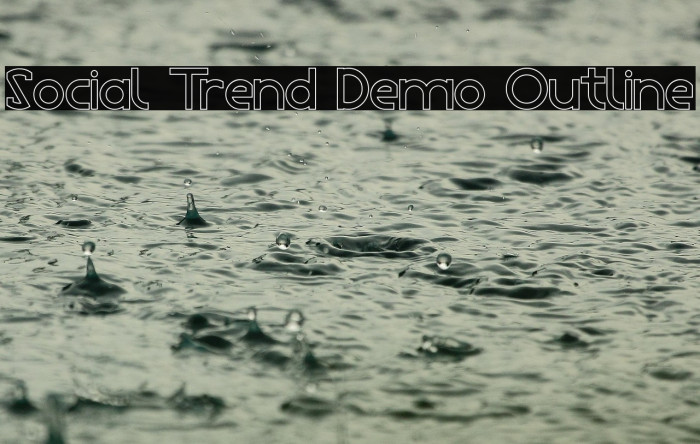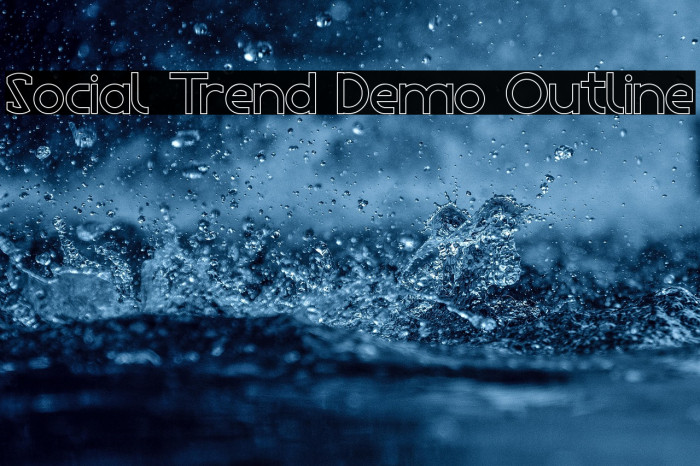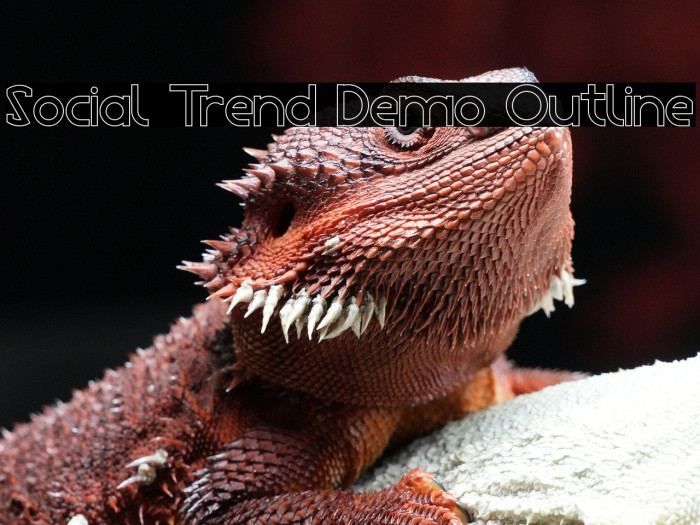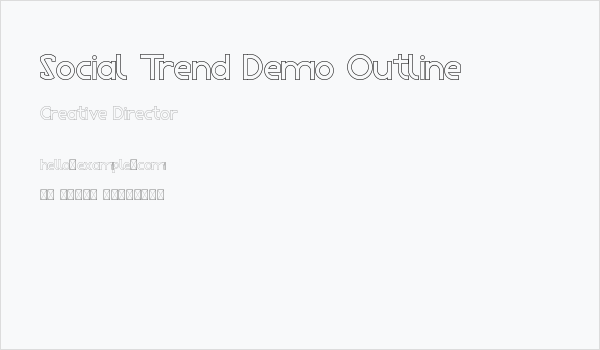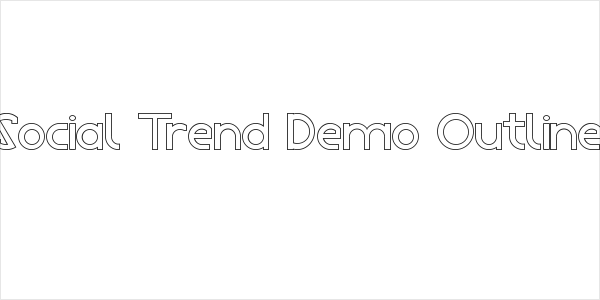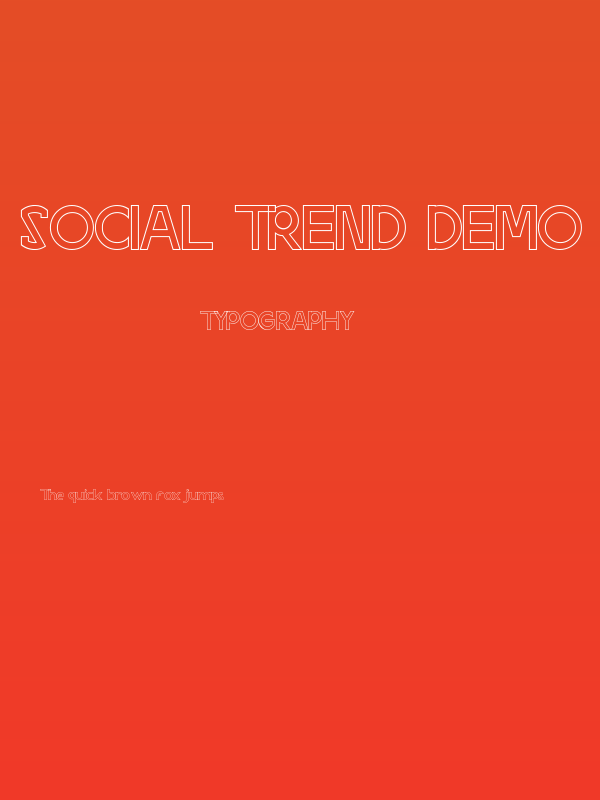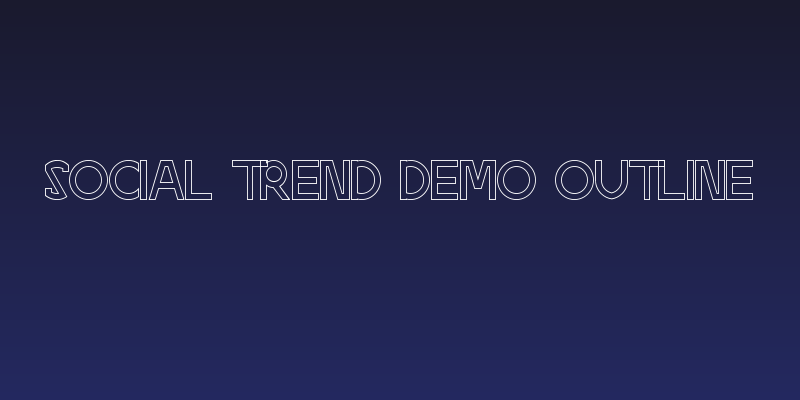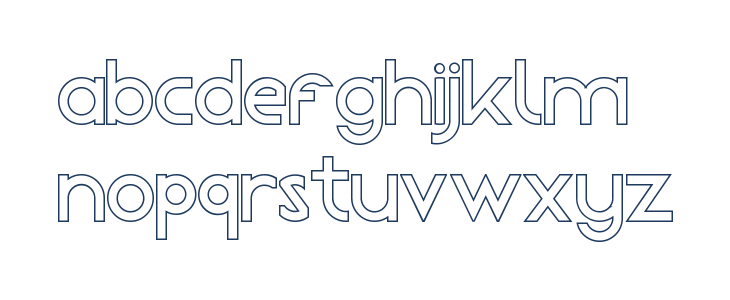
Social Trend Demo Outline Font
Social Trend Demo Outline Description
This font features a modern, geometric outline style that emphasizes clean lines and a structured form. The uppercase and lowercase letters maintain a consistent height, creating a harmonious and balanced appearance. The design is characterized by its open, airy feel due to the outlined nature of each character, which gives it a contemporary and stylish look. The font's simplicity and clarity make it highly legible, even in smaller sizes, while the outlined style adds a unique touch that sets it apart from traditional solid fonts. This font is versatile, suitable for a variety of design projects that require a modern and trendy aesthetic.
| Proposed Projects | Ideal for branding, logos, headlines, posters, and any design project that requires a modern and trendy touch. |